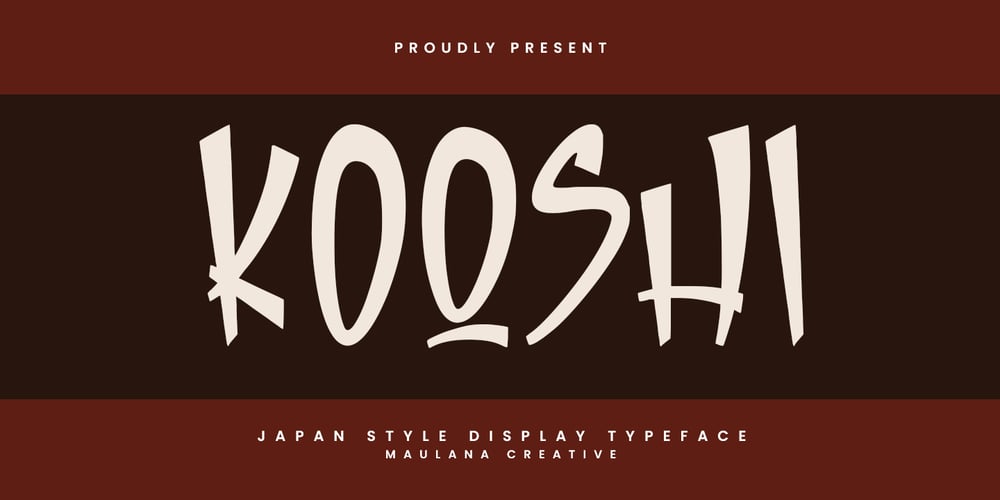
MC Kooshi Font Family was designed by Gilang Maulana and published by Maulana Creative. MC Kooshi contains 1 styles and family package options. Kooshi font decorative comic japanese styles. Bold stroke, fun character with a bit of ligatures and alternates. To give you an extra creative work. Kooshi font decorative comic japanese styles support multilingual more than 100+ language. This font is good for logo design, Social media, Movie Titles, Books Titles, a short text even a long text letter and good for your secondary text font with script or serif. Make a stunning work with Kooshi font decorative comic japanese styles. Cheers, Maulana Creative